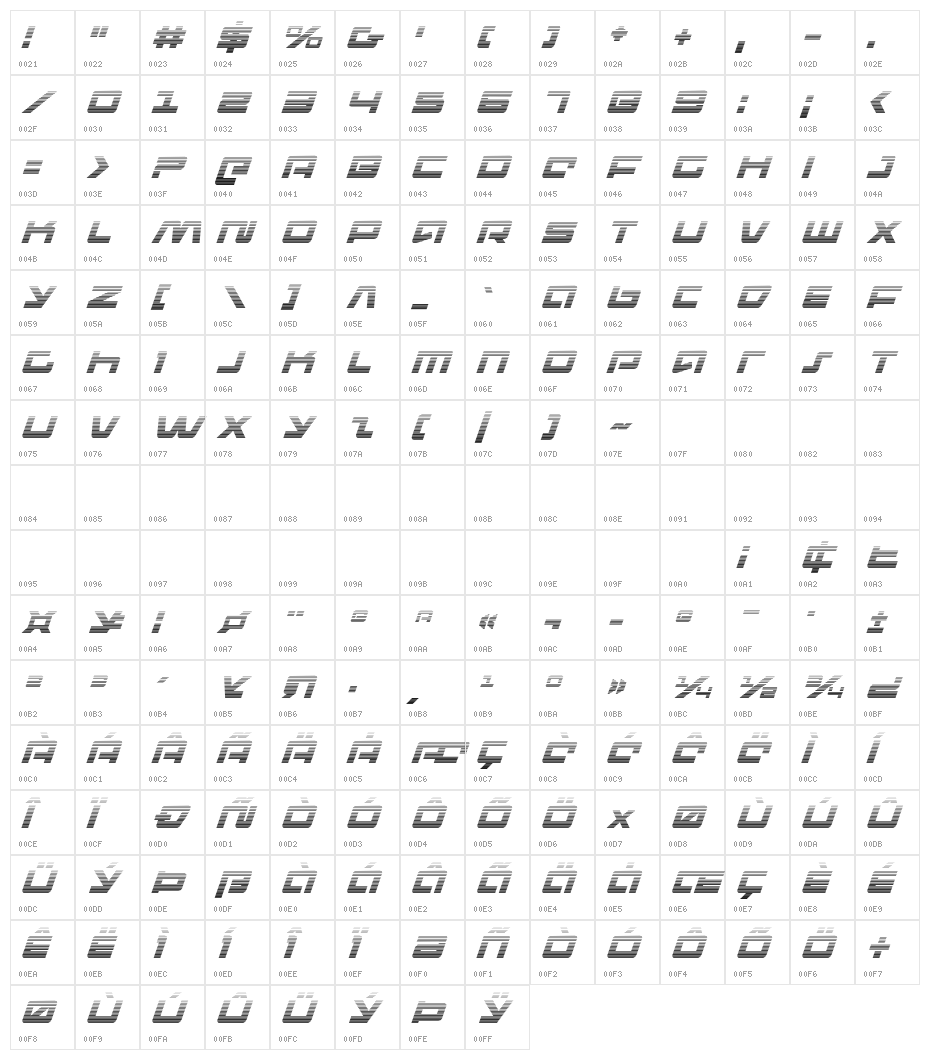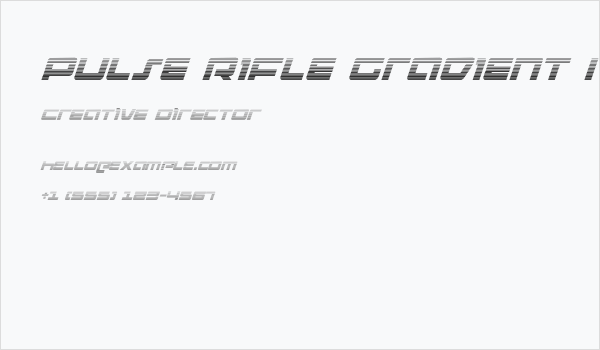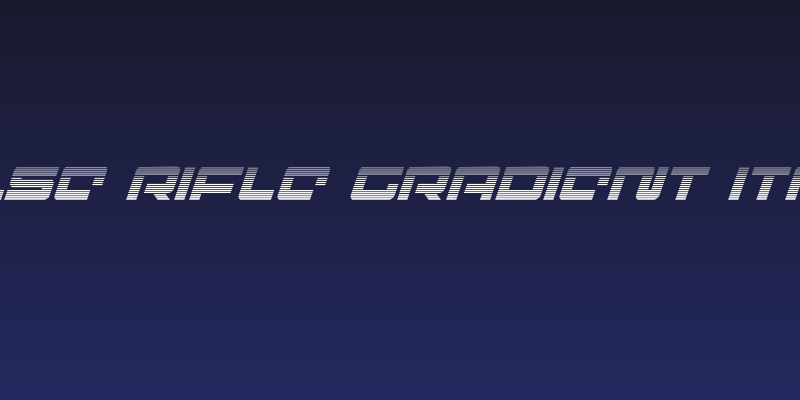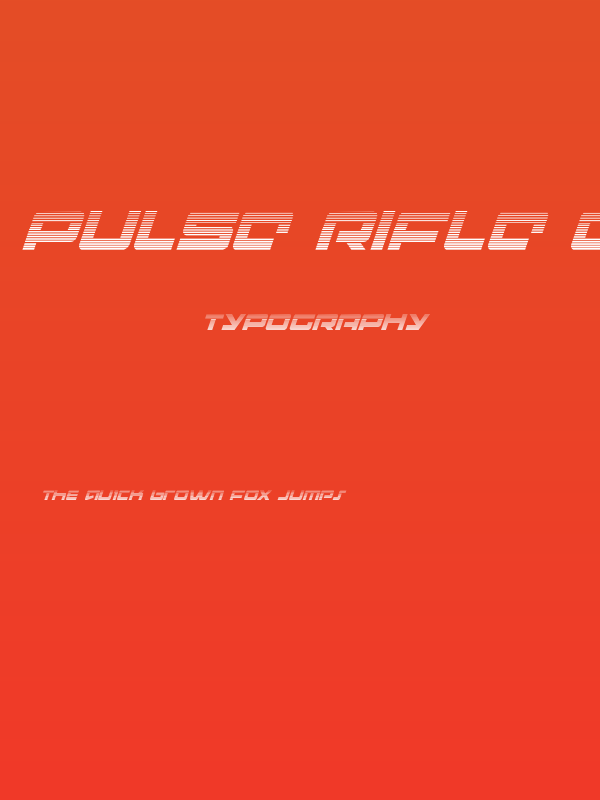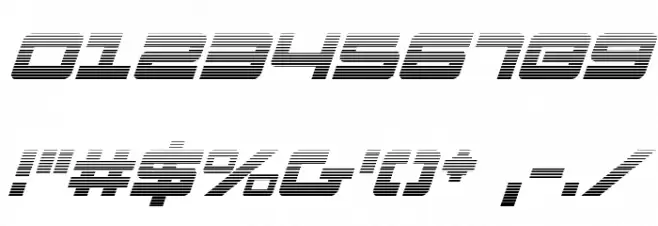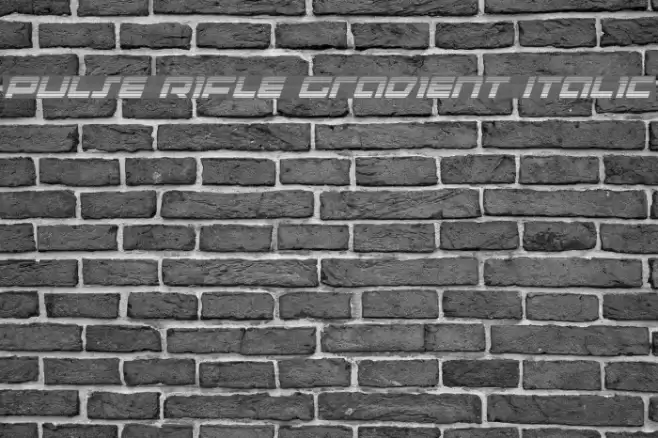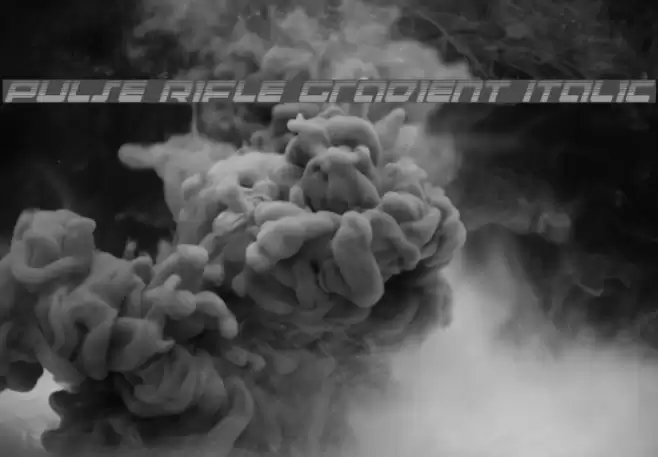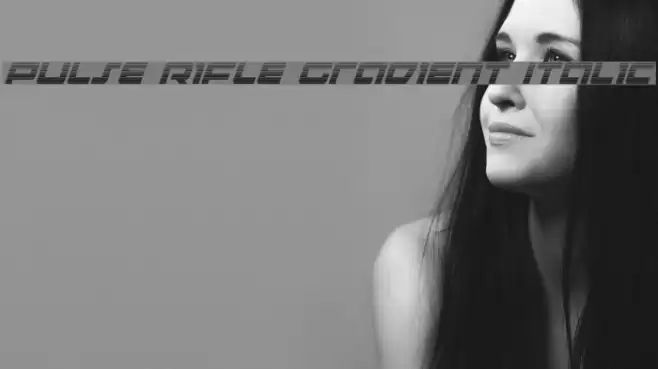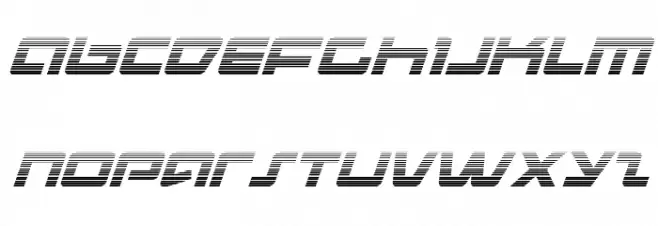
Pulse Rifle Gradient Italic Font
Pulse Rifle Gradient Italic Description
This font features a futuristic and dynamic design, characterized by its gradient and italicized style. The letters are composed of horizontal lines that create a sense of movement and speed, making it ideal for projects that require a modern and energetic look. The uppercase and lowercase letters maintain a consistent style, with sharp angles and a sleek appearance. The numbers and special characters are designed to match the overall aesthetic, ensuring a cohesive look across all text elements. The font's unique style makes it stand out, perfect for creative and bold applications.
| Proposed Projects | Ideal for sci-fi themed projects, video game titles, tech branding, and futuristic posters. |